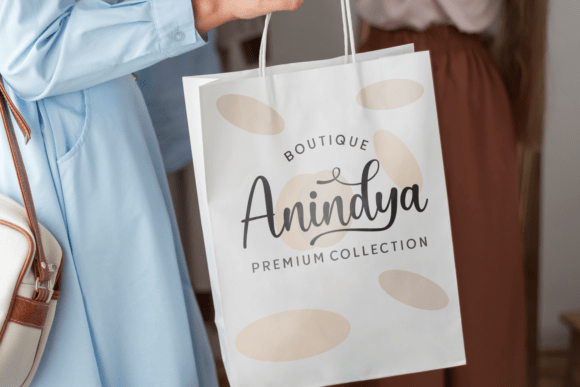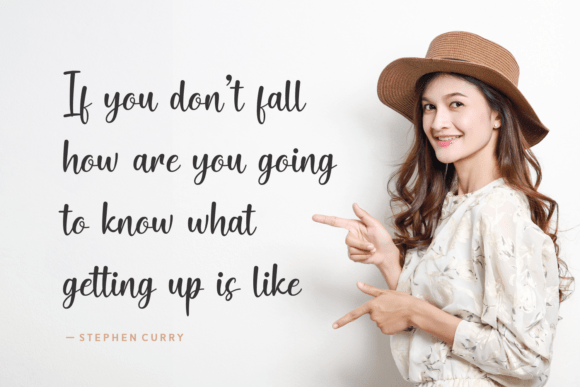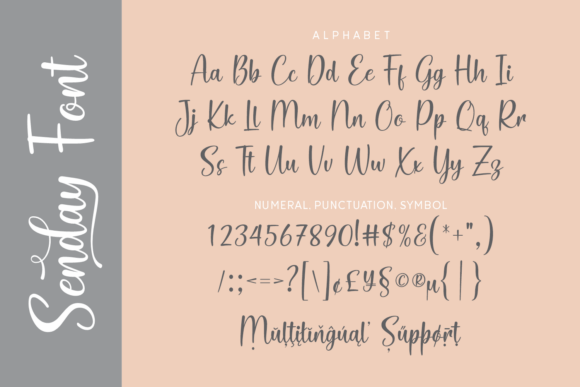
Introduction to Senday Font
Senday is a cheerful and modern script font with graceful swashes and a clean, flowing style.
Perfect for invitations, branding, packaging, and lifestyle content, Senday brings charm and warmth to any design Its blend of handwritten flair and polished form makes it ideal for creatives seeking both playfulness and professionalism.
Key Features of Senday Font
Why Choose Senday Font?
Senday Font offers exceptional quality and versatility, making it a valuable addition to your design toolkit. Whether you’re creating for personal projects or commercial use, Senday Font delivers professional results.